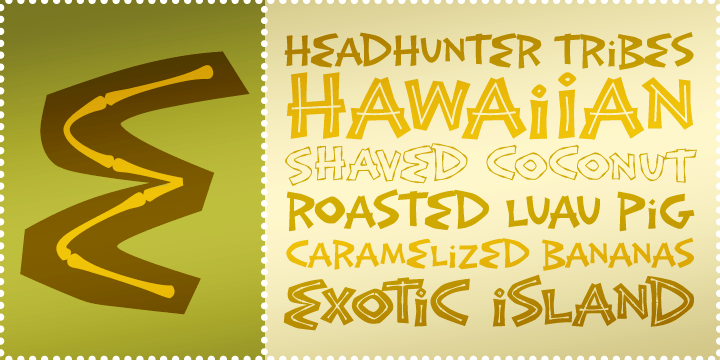
Exotic Island BTN
Exotic Island BTN is a playful tropical display family with a bold vacation-poster personality. Inspired by island-themed lettering and bamboo-styled forms, it brings a lively, sun-soaked character to designs that call for a festive escapist feel. The family works especially well for tiki-themed graphics, beach party materials, restaurant branding, travel-inspired posters, signage, packaging, and summer event promotions. With Regular and Bold core styles plus Bamboo, Inline, and Outline variants, Exotic Island BTN offers flexible ways to create layered display typography with warm-weather flair.